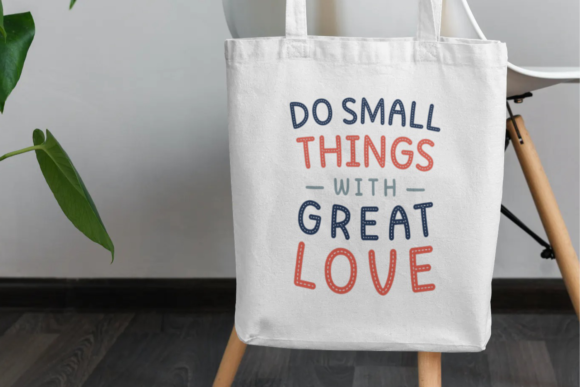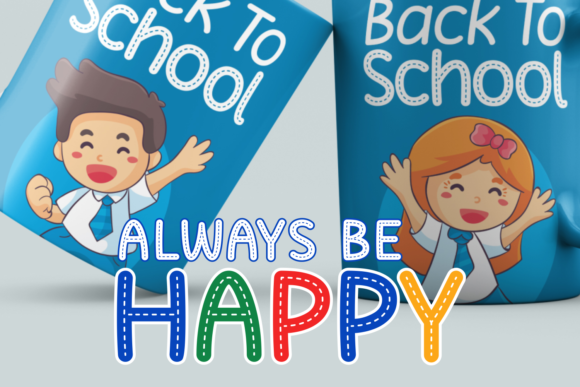
Introducing Alphabit Stitched: Elevate Your Designs with a Simple yet Powerful Font
Are you tired of using the same old fonts in your designs? Look no further! Alphabit Stitched is a game-changing display font that’s here to take your informal projects to the next level. With its simple and natural aesthetic, this font is poised to become a true favorite among designers and crafters alike.
What is Alphabit Stitched?
Alphabit Stitched is a carefully crafted font that’s designed to bring a touch of elegance and sophistication to your designs. Its unique stitched texture gives it a distinctive look that’s both modern and timeless. Whether you’re working on a DIY project, a branding campaign, or a personal blog, Alphabit Stitched is the perfect choice.
Key Features of Alphabit Stitched
- Simple and Natural Design: Alphabit Stitched boasts a clean and effortless design that’s perfect for creating a warm and inviting atmosphere in your projects.
- Display Font: This font is specifically designed to make a statement, making it ideal for headings, titles, and other display purposes.
- Versatile: Alphabit Stitched can be used in a wide range of projects, from crafting and DIY to branding and advertising.
- Easy to Read: Despite its unique texture, Alphabit Stitched remains highly legible, ensuring that your message is conveyed clearly and effectively.
Who Can Benefit from Alphabit Stitched?
Alphabit Stitched is a versatile font that can be used by a variety of professionals and hobbyists, including:
- Graphic Designers: Add a touch of sophistication to your branding and advertising projects with Alphabit Stitched.
- Crafters: Use Alphabit Stitched to create beautiful and eye-catching titles for your handmade products, such as jewelry, candles, and more.
- Bloggers: Elevate your blog’s visual appeal with Alphabit Stitched, perfect for creating engaging headings and titles.
- Small Business Owners: Establish a strong brand identity with Alphabit Stitched, ideal for logos, packaging, and marketing materials.
How to Use Alphabit Stitched in Your Designs
Using Alphabit Stitched in your designs is easy! Here are a few tips to get you started:
- Pair it with Other Fonts: Combine Alphabit Stitched with other fonts to create a unique and visually appealing typography.
- Experiment with Colors: Try out different colors and textures to find the perfect combination that matches your brand’s aesthetic.
- Use it for Headings and Titles: Alphabit Stitched is perfect for creating eye-catching headings and titles that draw attention to your content.
Alphabit Stitched is a powerful and versatile font that’s poised to become a staple in every designer’s toolkit. Its simple and natural aesthetic, combined with its unique stitched texture, makes it the perfect choice for a wide range of projects. Whether you’re a seasoned designer or a hobbyist, Alphabit Stitched is sure to elevate your designs and take them to the next level.